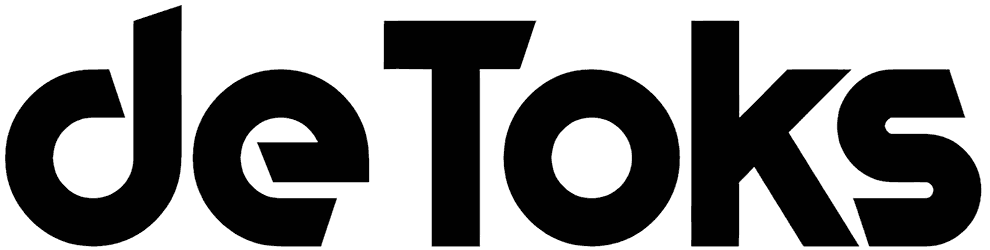
Minerva Font
Minerva, with a modern and modest mood, is a sans serif font that can be matched by numerous official or nonofficial themes. Don’t matter whether it’s a poster, a standalone headline, a website, or any design with short or long text, Minerva can be a professional choice. Use this deathless face and show your originality.
Designed by: Moonstone Co